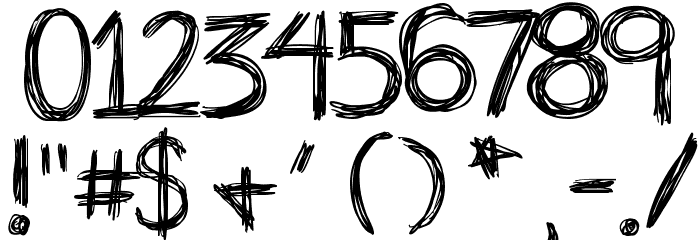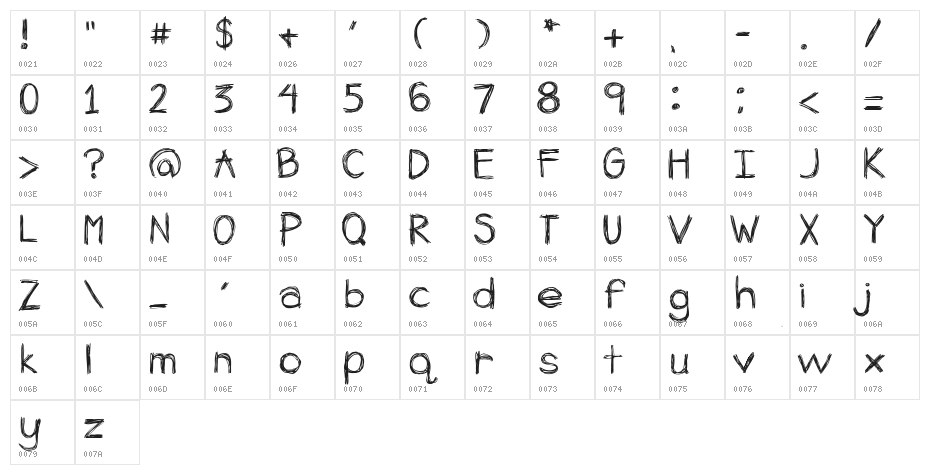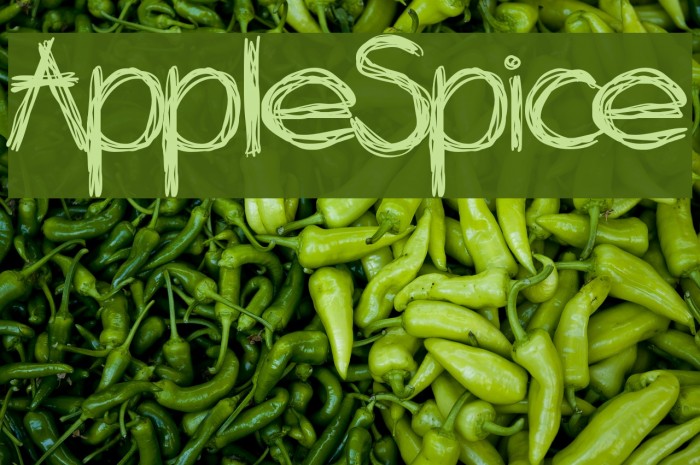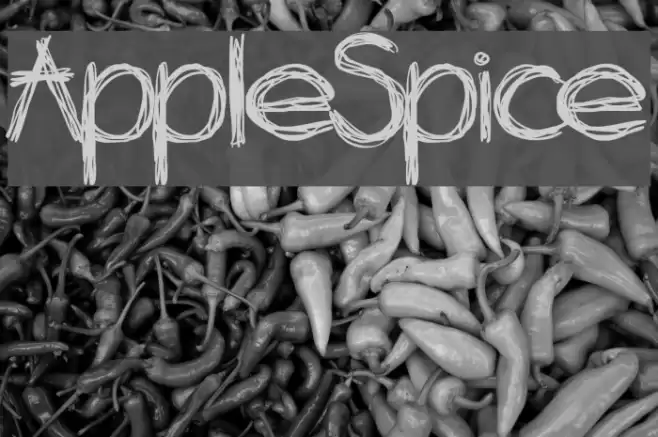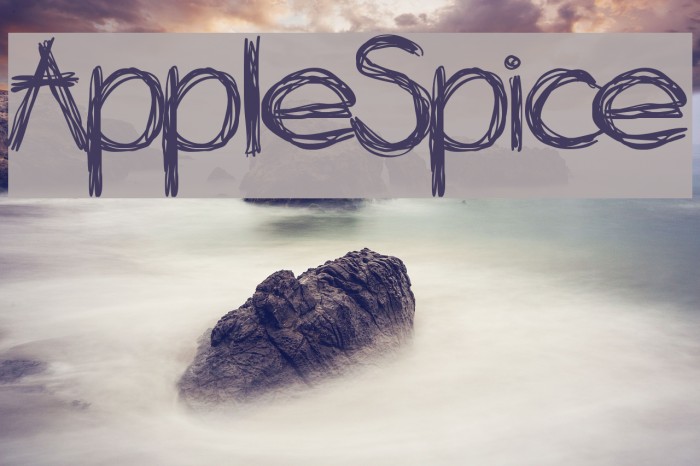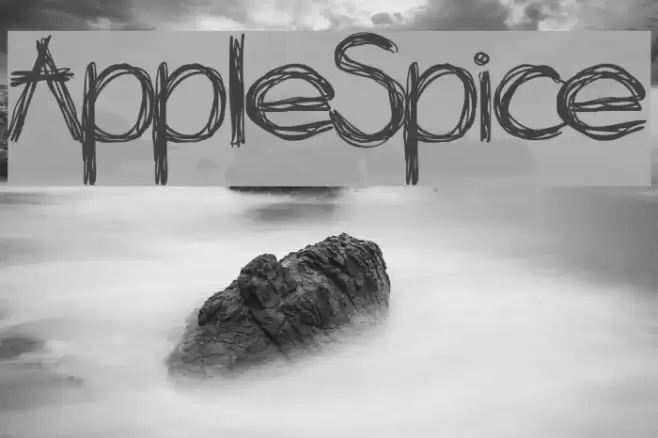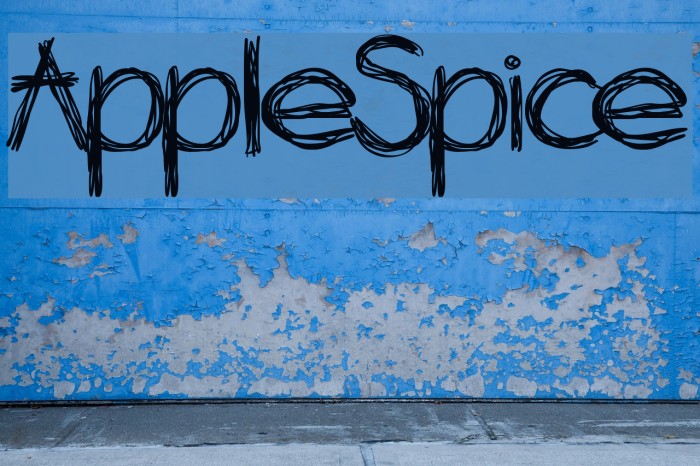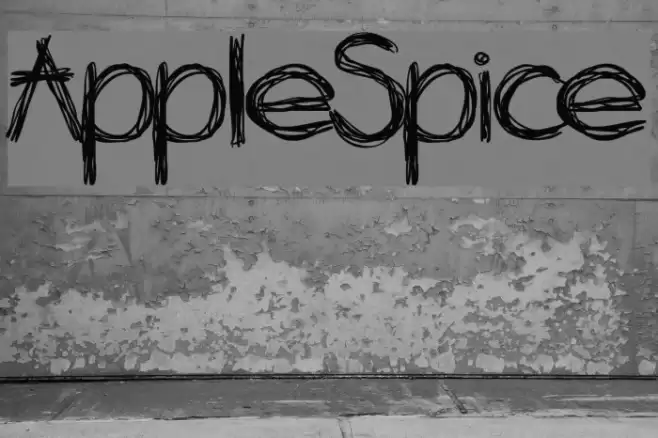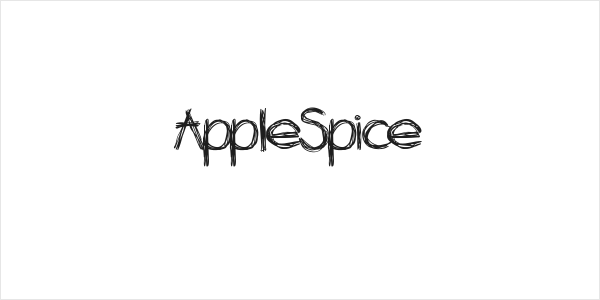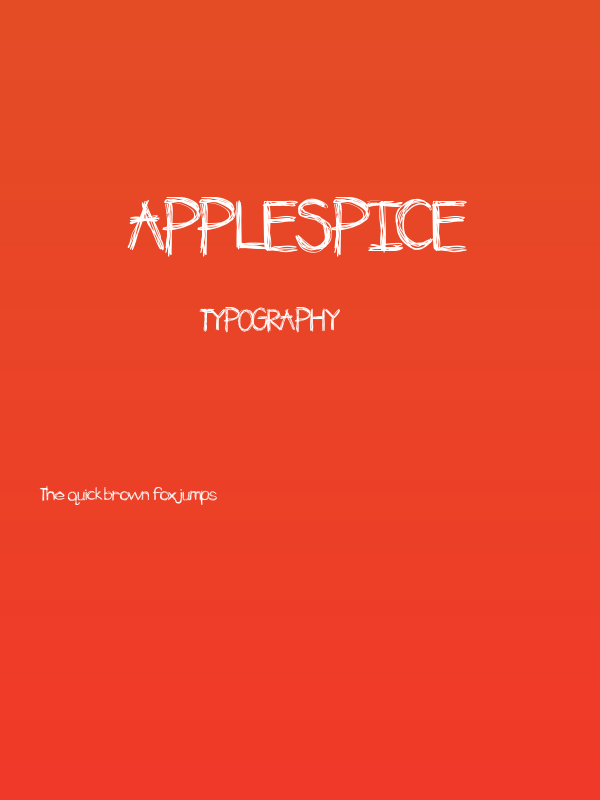
AppleSpice Font
AppleSpice Description
This font features a unique, hand-drawn style with a sketch-like appearance. The letters are characterized by irregular strokes and a playful, artistic flair. The uppercase and lowercase letters maintain a consistent style, with each character exhibiting a slightly rough texture that adds to its charm. The numbers and special characters follow the same design, ensuring a cohesive look across all elements. This font's distinctive style makes it stand out, offering a creative and informal vibe that is both engaging and visually appealing.